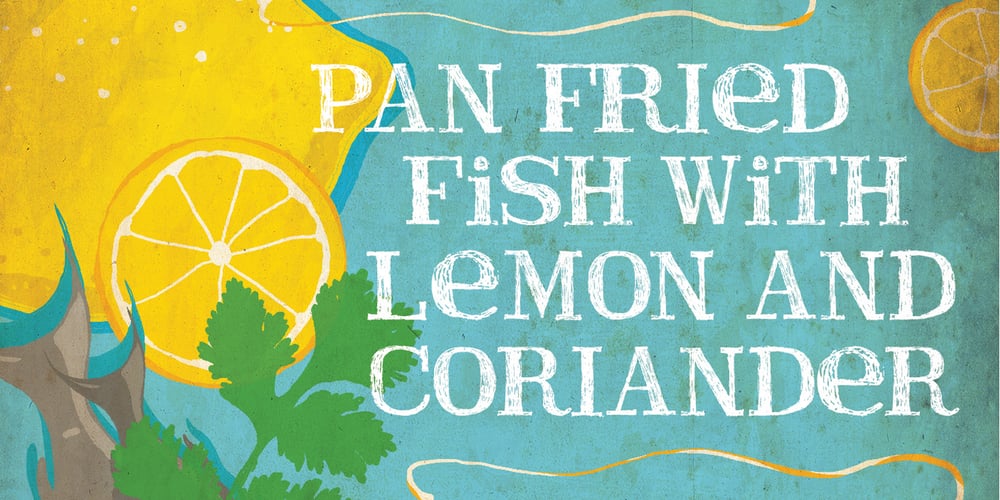
Travel Diary
Travel Diary font
Travel Diary Font Family was designed by published by Siddharth Dasari. Travel Diary contains 1 styles and family package options. The font was developed because of my pure interest in handwritten type. Handwritten type is more personal and works wonders to connect with people. Travel Diary is a handwritten display typeface with its bold graphic presence making it ideal for usage in informal postcards, invitations, travel and lifestyle magazines, wedding and informal event graphic work, display signages, packaging for various kinds of food, menus and leaflets for coffee shops and restaurants etc.